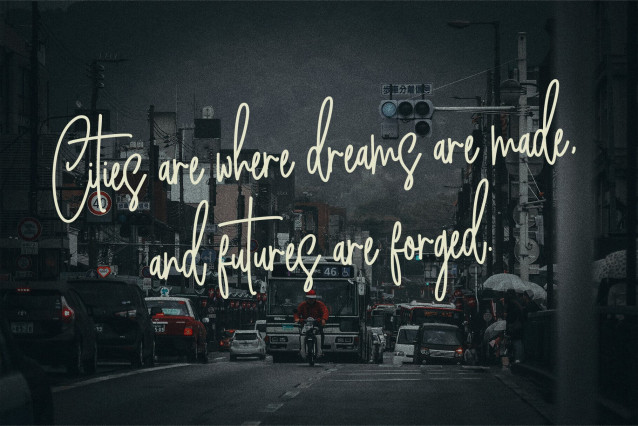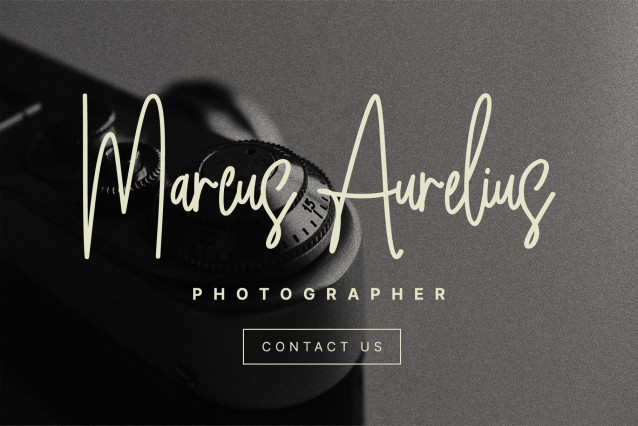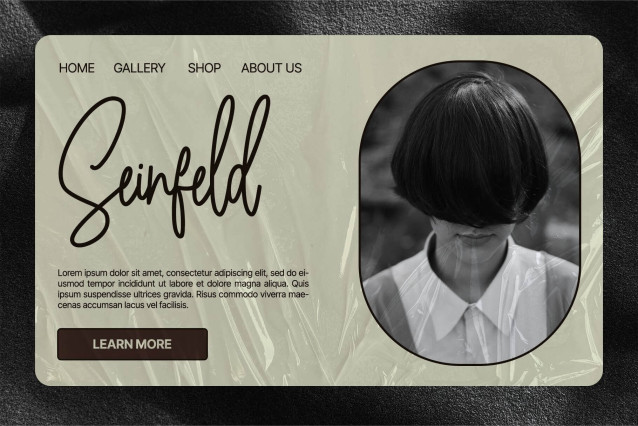
Great Sweet Font is a modern handwritten script font that blends elegance and creativity into every stroke. Its smooth, flowing lines and natural letterforms make it perfect as a signature font, cursive font, or calligraphy font. Designed for versatility, Great Sweet Font brings a refined touch to both digital and printed designs, ideal for projects that demand an aesthetic font with luxury appeal.
This wedding font and branding font also shines in logo design, cosmetic packaging, and other elegant projects. As part of the modern fonts collection, it works beautifully as a luxury font or elegant font for invitations, fashion labels, or minimalist branding. Add timeless sophistication to your work. Download Great Sweet Font today and make every design truly unforgettable.